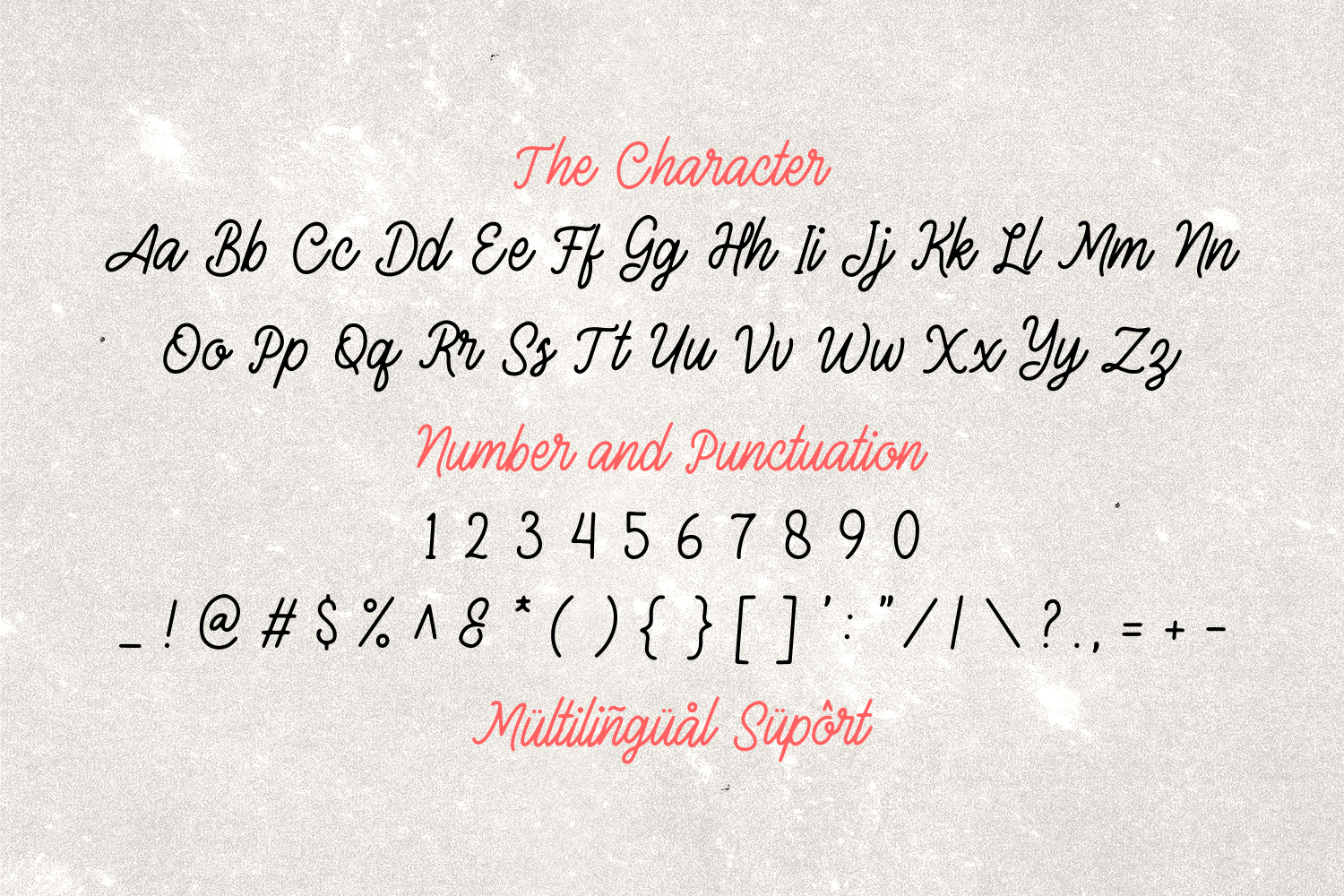
Almost Love Font
Almost Love Script Font is a fancy and elegant handcrafted font that create to impress your audience and make your branding shine.
Make your projects dance with this elegant and wonderful font wherever you use it. Use it for your headings, logos, ads, printed quotes, packaging, and even your website or social media branding.